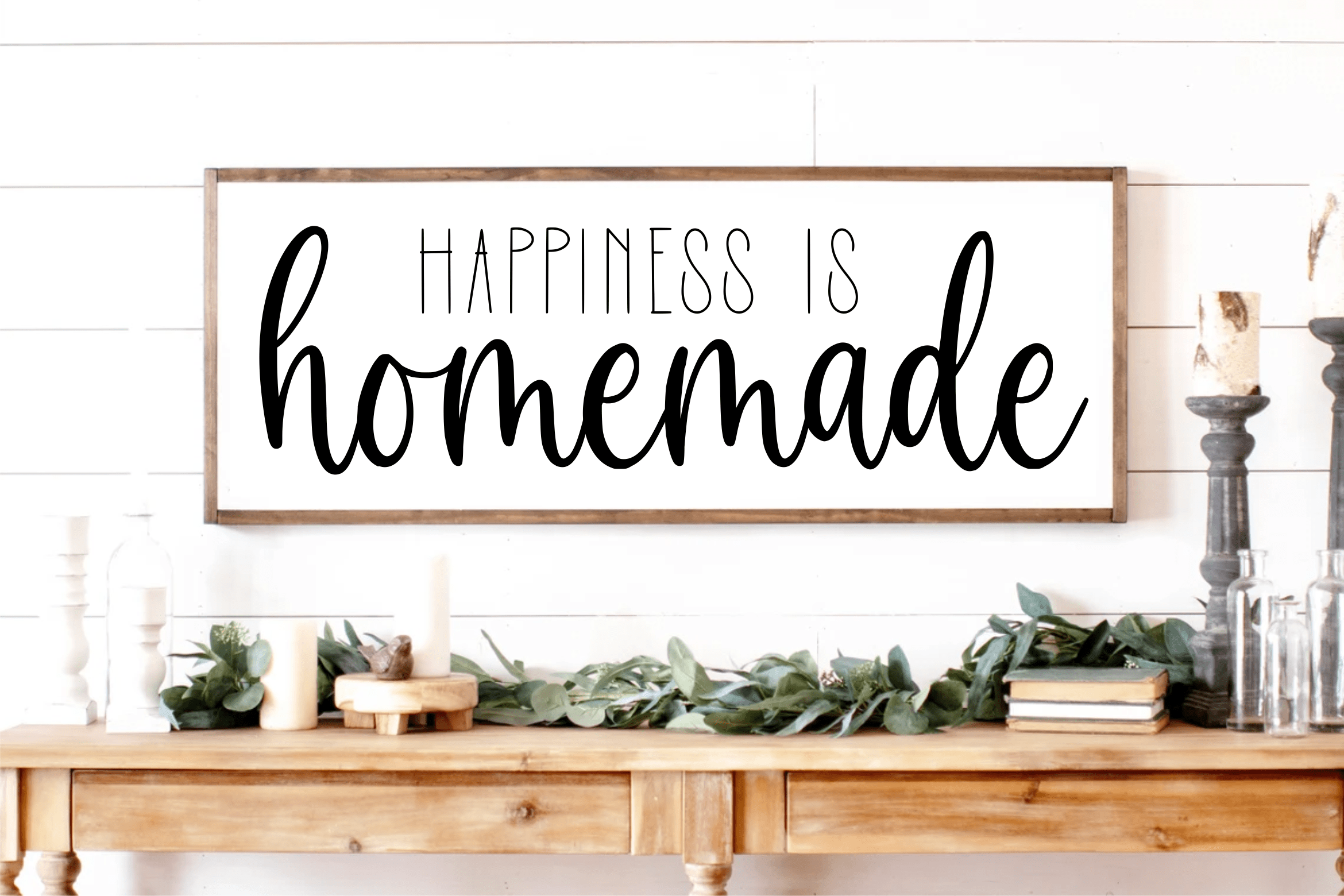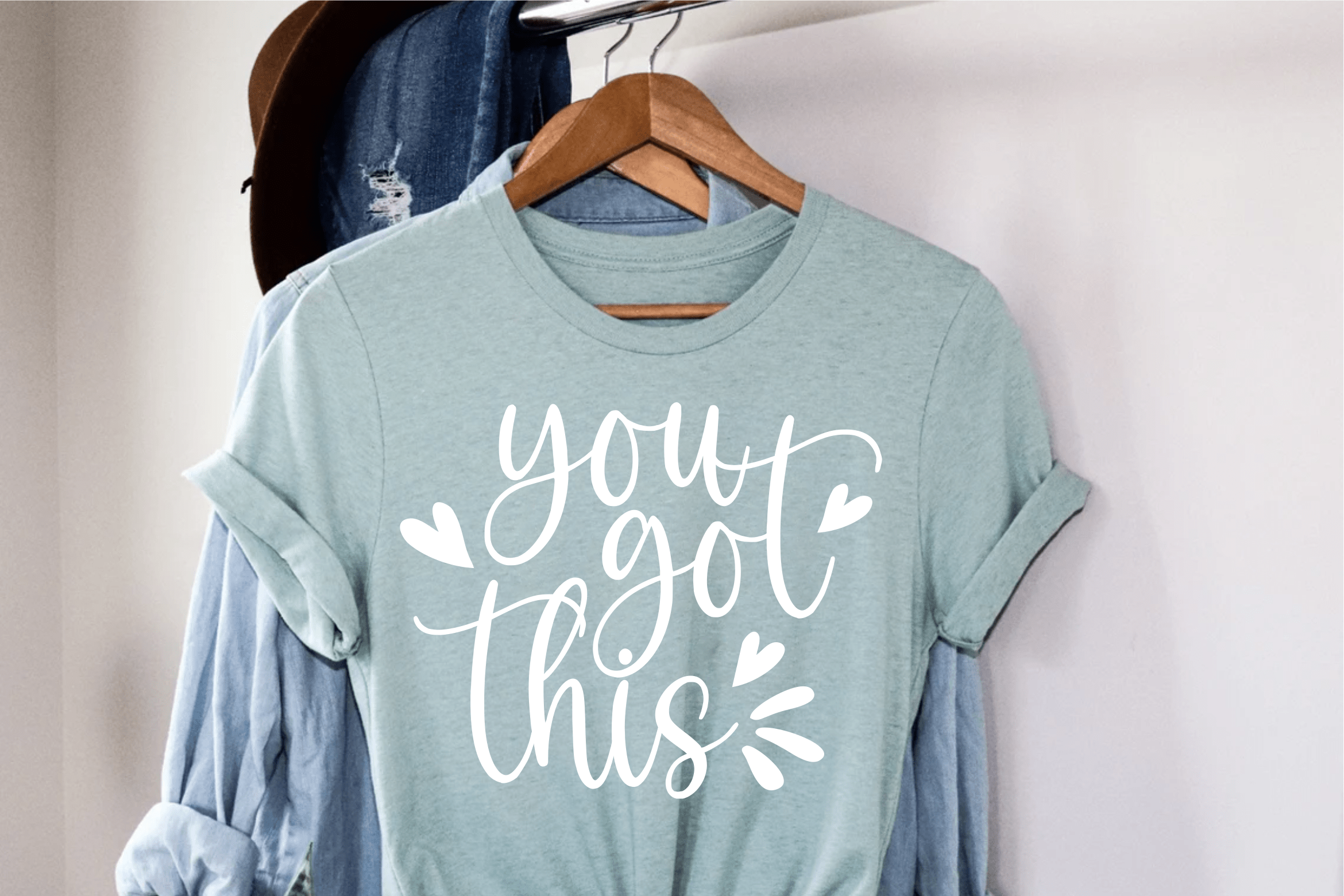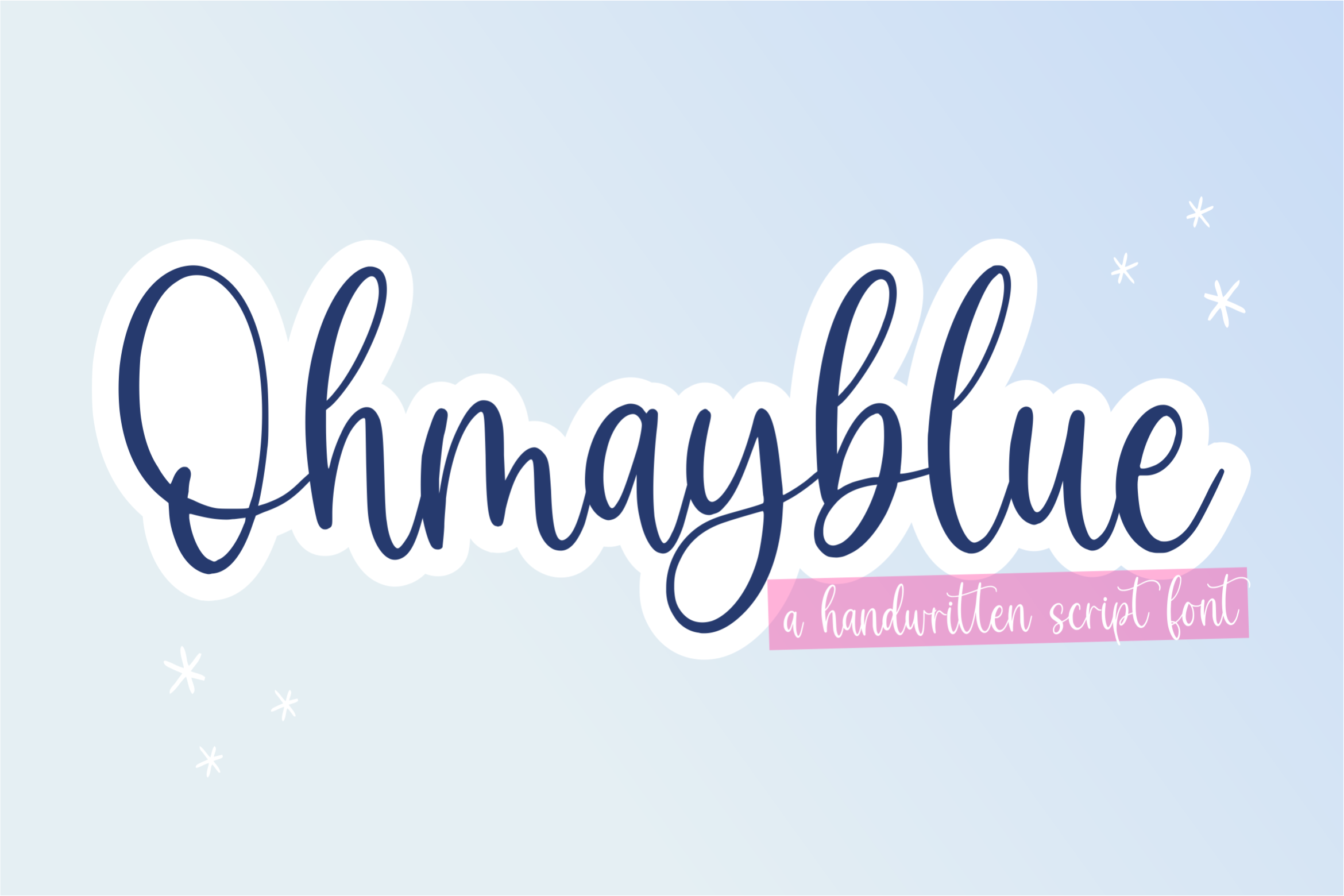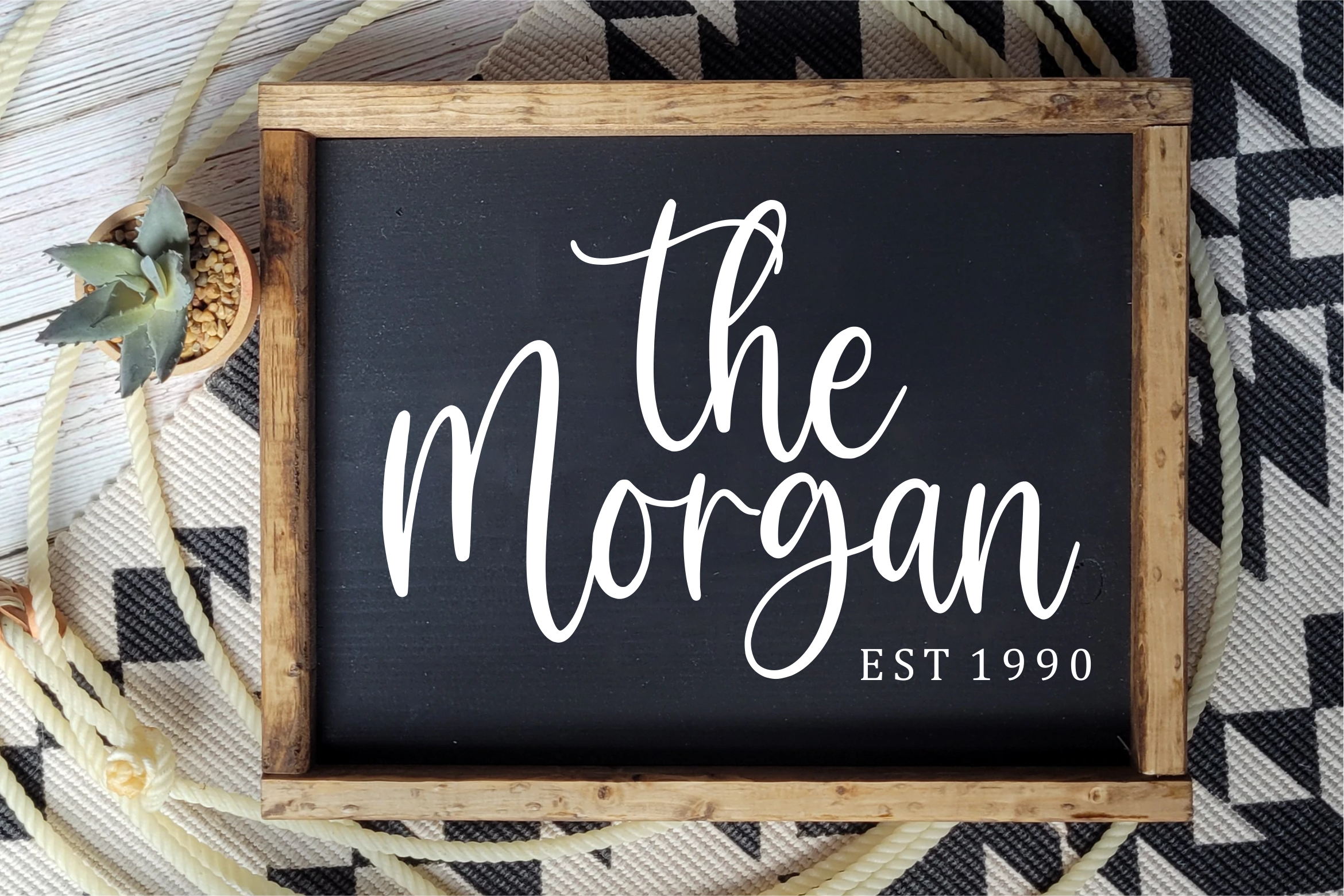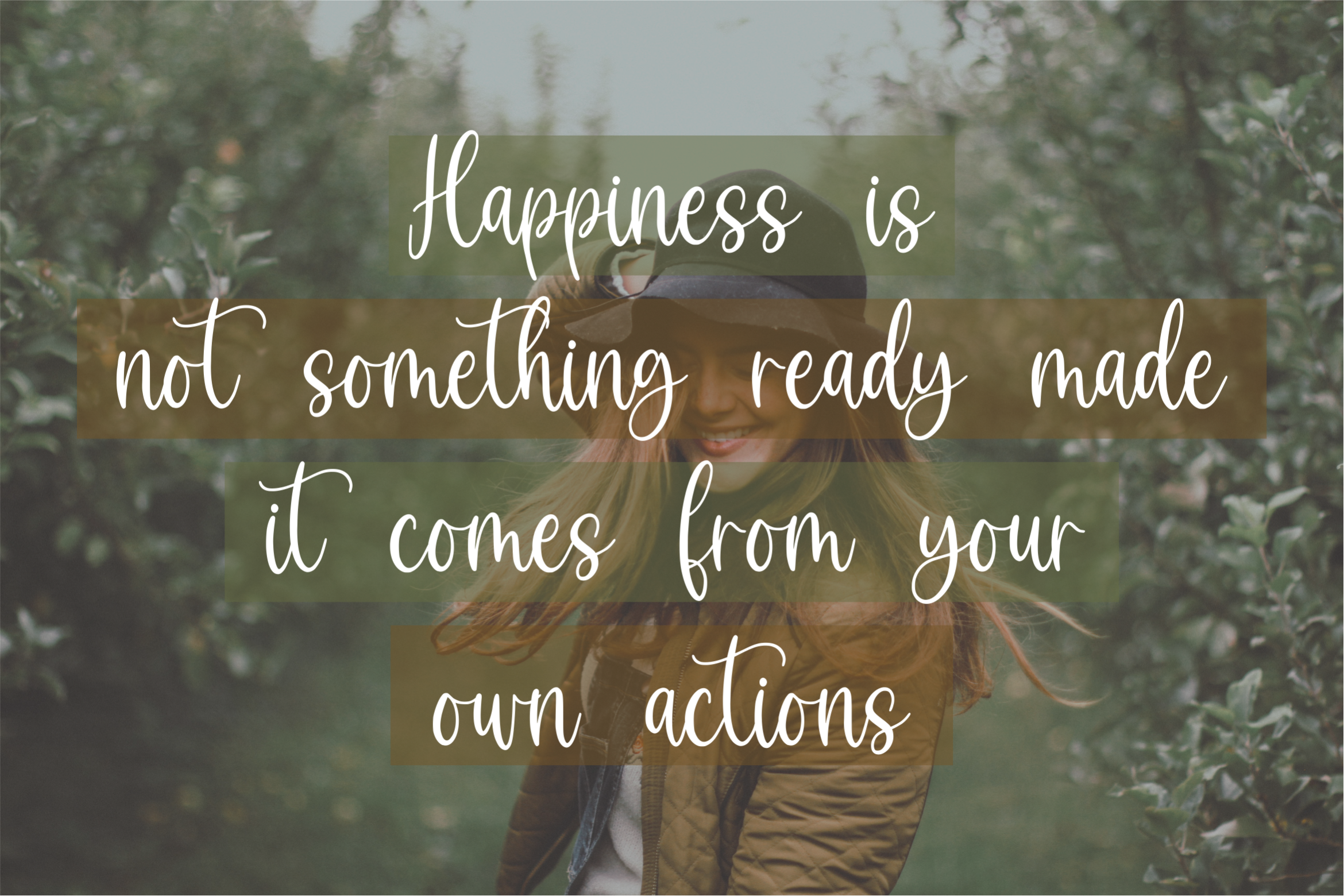
Ohmayblue Script Font
It’s a Handwritten Script Font. Ohmayblue is perfect for product packaging, branding project, megazine, social media, wedding, or just used to express words above the background.